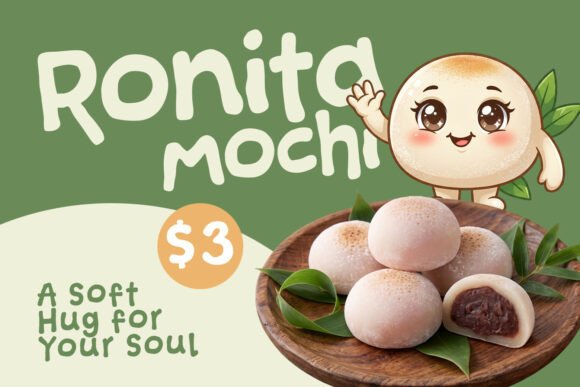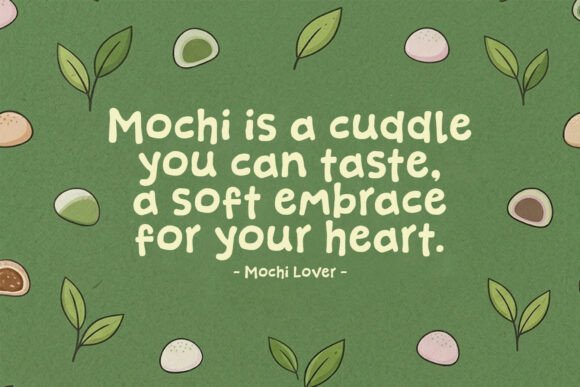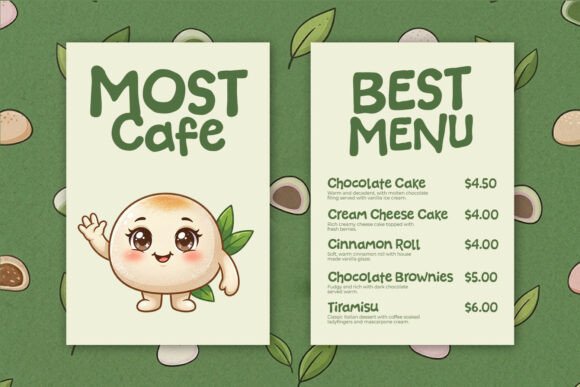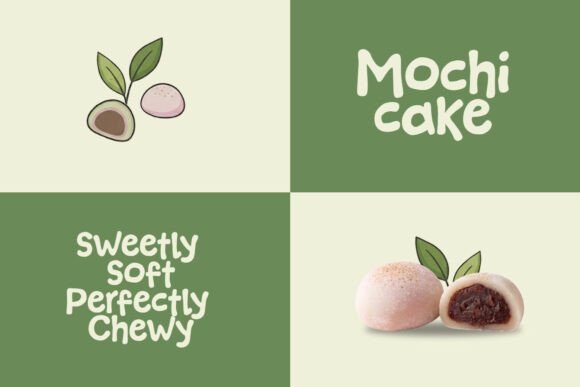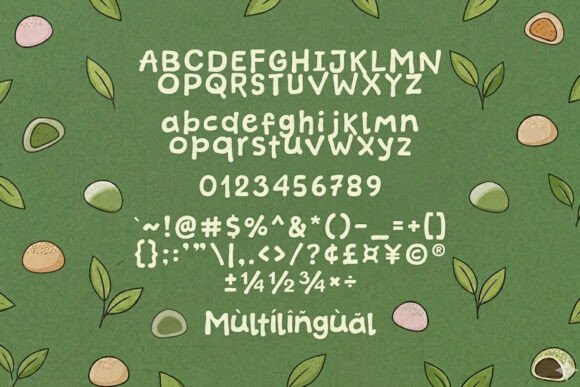
Introduction to Mochi Green Font Font
Fonts play a crucial role in design, and the Mochi Green Font font is a typeface that brings both character and versatility to any project. Whether you’re working on a branding project, a website, or a print design, the Mochi Green Font font offers a unique style that can elevate your work.
Mochi Green is a modern and cute display font perfect for posters, logos, magazines, book covers, banners, and many more.
Key Features of Mochi Green Font Font
Why Choose Mochi Green Font Font?
The Mochi Green Font font is more than just a typeface – it’s a design tool that helps you communicate your message with style and clarity. Its unique character set and versatile design make it suitable for a wide range of applications, from elegant invitations to bold headlines.
With its carefully crafted letterforms and balanced proportions, the Mochi Green Font font ensures readability and visual appeal across all mediums.
What makes Mochi Green Font font special?
The Mochi Green Font font stands out with its unique design, exceptional readability, and versatility across various design applications.